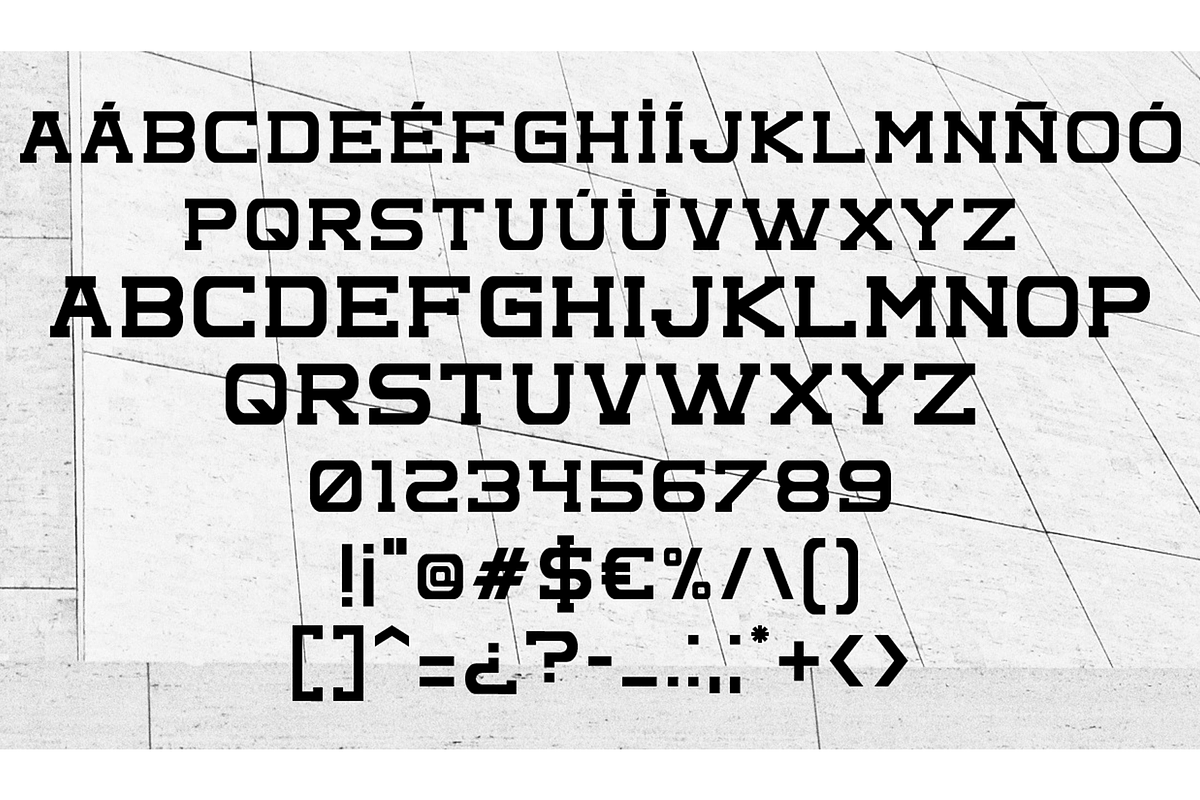
Complex v15
Complex v15 by Qbotype Fonts is a font selected for branding, posters, packaging, typography.
- Complex Font This typeface contains 95 characters, including uppercase, lowercase, numbers and symbols.
Why Complex v15 is worth a look
Complex v15 by Qbotype Fonts fits naturally into Branding, posters, packaging, typography.